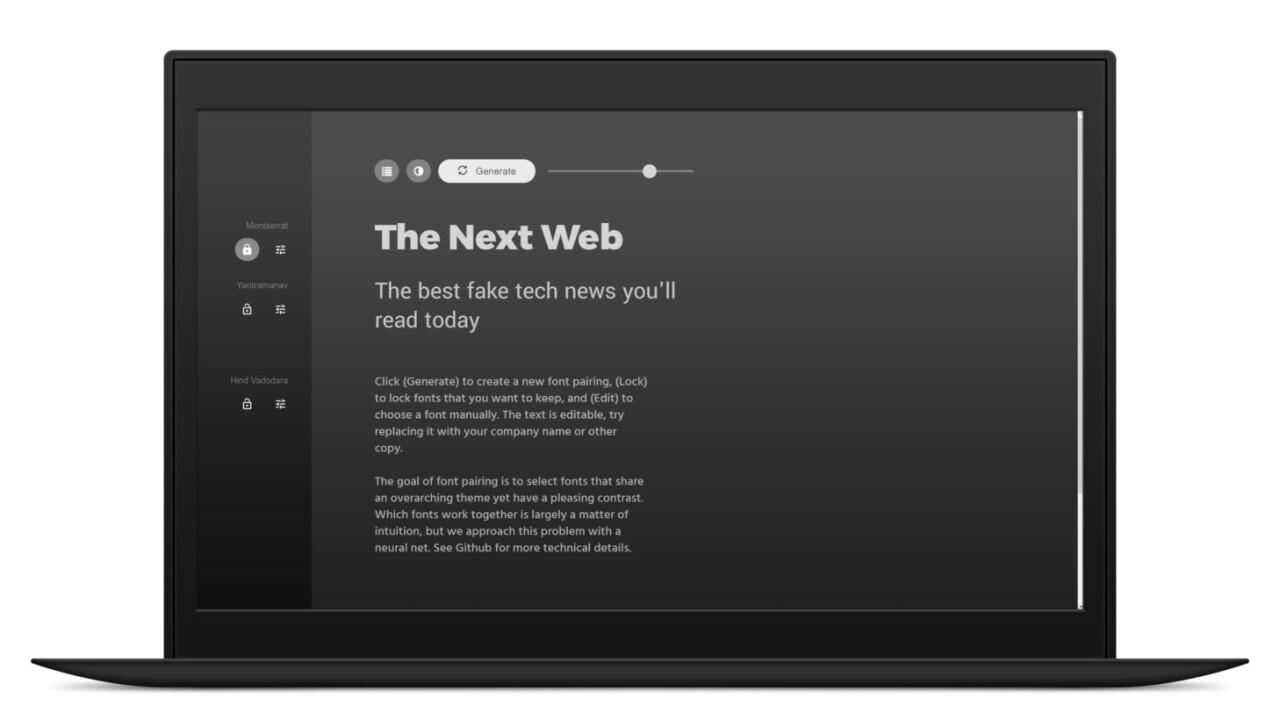
This site expertly pairs fonts using machine learning
As any typography nerd will tell you, pairing fonts on a design project isn’t as simple as you might think. Depending on your objective (to create balance or to tension, or to showcase a particular piece of content, for example), there are various approaches you can take. But what if you’re a novice and need a little help getting a couple of fonts to play nice together?
Try designer-engineer Jack Qiao’s new project, Fontjoy. His easy-to-use site generates font pairings on demand that, for the most part, work pretty well.
You can fiddle with nearly 2,000 fonts (courtesy of Google, of course) and choose to set one as your primary choice while the site flips through multiple options for the other two fields. And of course, you can also select and play around with pairings of your own on the page.
To build this intelligent system, Qiao extracted feature vectors from images of fonts, so that he could then use vector arithmetic to compare them. This concept can be used to find fonts that are similar to each other, and hence expanded to pair fonts that share certain common features and others that distinguish them from one another.
With some clever math, Fontjoy generates pairings that often look good on their own. But if you’re a seasoned designer, you’ll probably find it useful as a starting point for your typography projects, or to simply experiment and find inspiration for something that suits your work perfectly. Give it a go here, and learn more about how Fontjoy functions on this page, as well as in this GitHub repository.